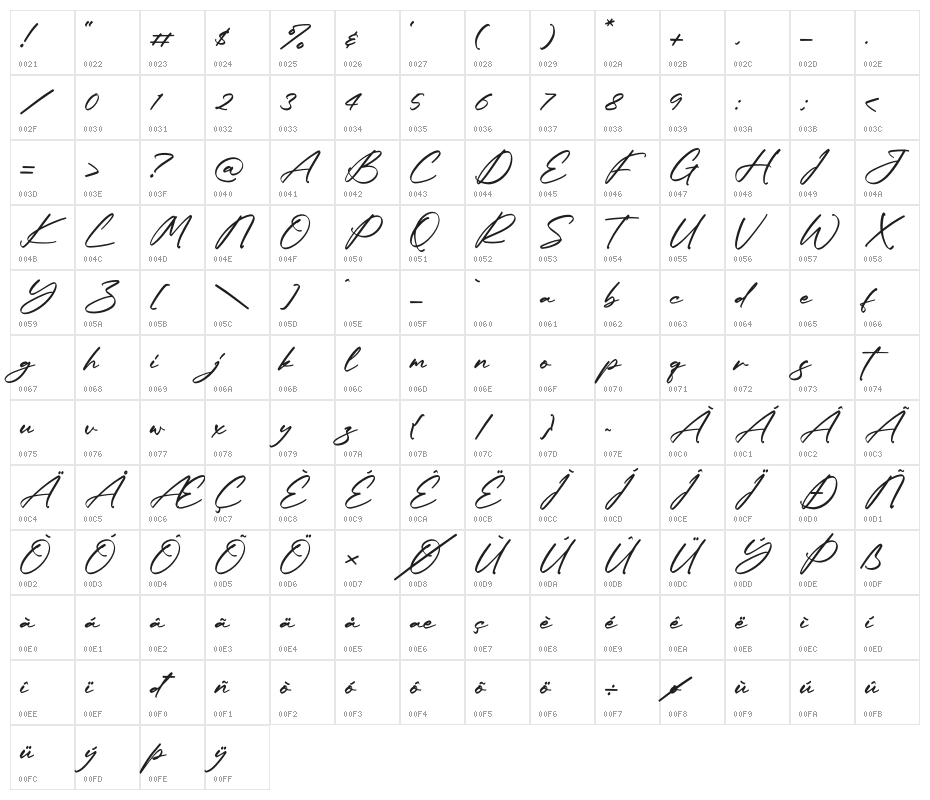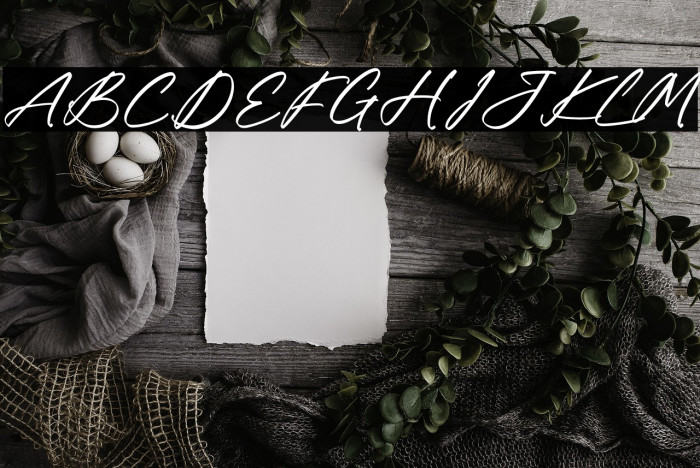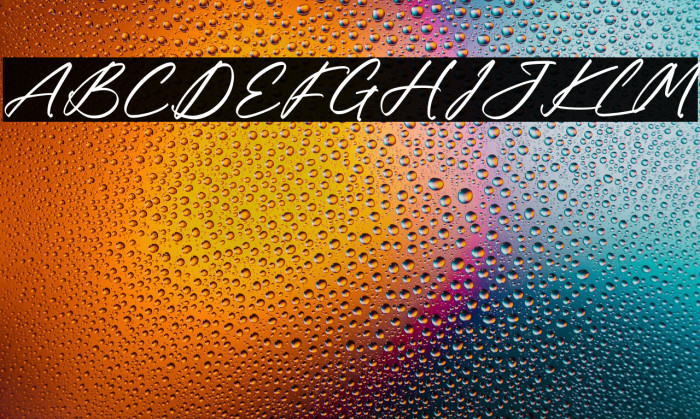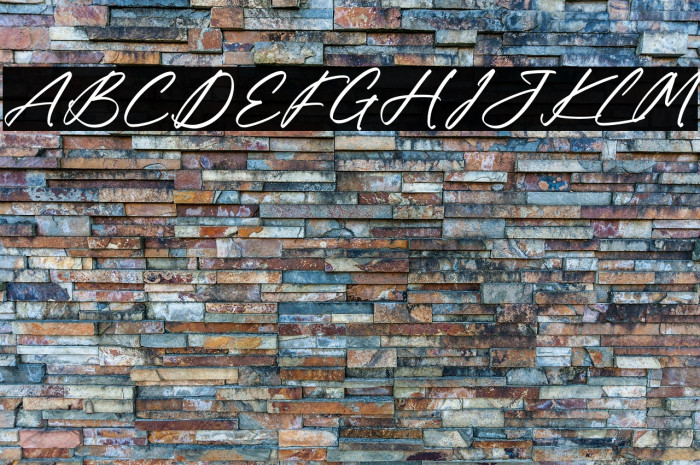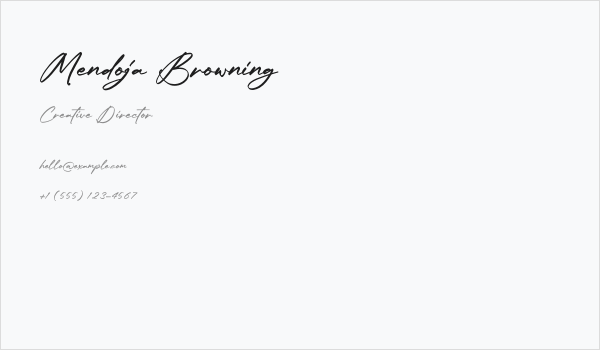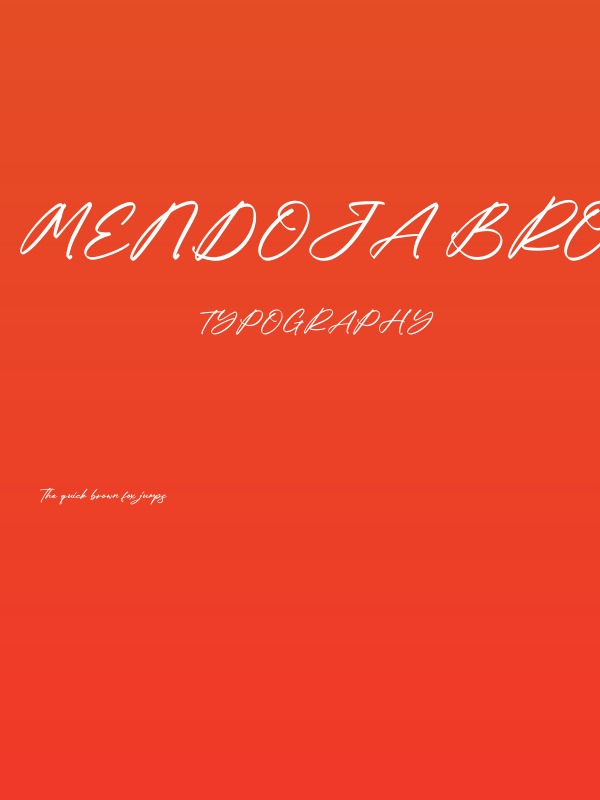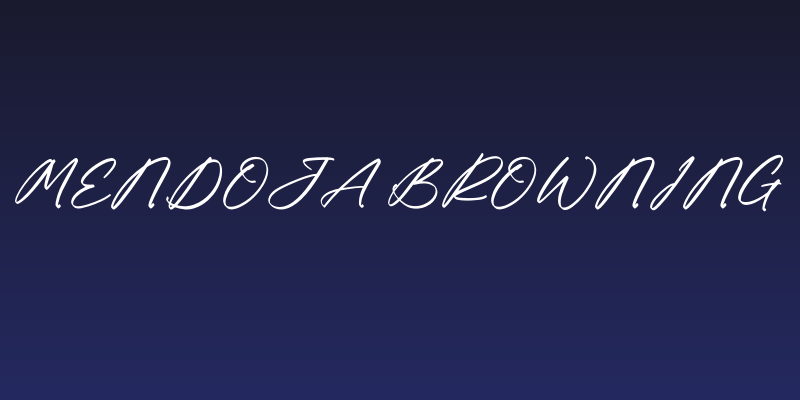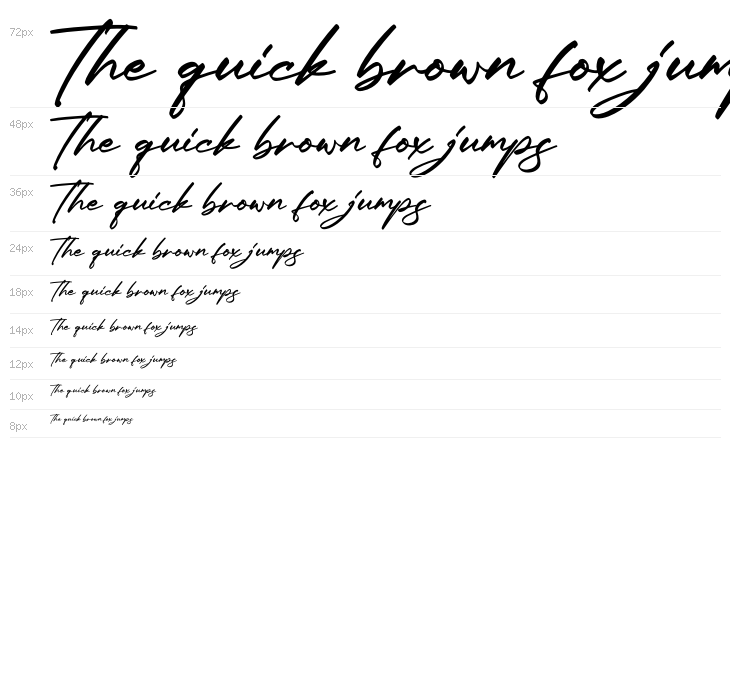
Mendoja Browning Font
Mendoja Browning Description
This font features a dynamic and fluid script style, characterized by its elegant and flowing cursive letters. The uppercase letters are slightly more formal, with a consistent slant and smooth curves, while the lowercase letters maintain a casual and approachable feel. The numbers and special characters are crafted with the same attention to detail, ensuring a cohesive look throughout. The strokes vary in thickness, providing a natural handwritten appearance that adds a personal touch to any design.
| Overall Style | Elegant, Handwritten |
| Proposed Projects | Ideal for wedding invitations, greeting cards, personal branding, and elegant logos. |